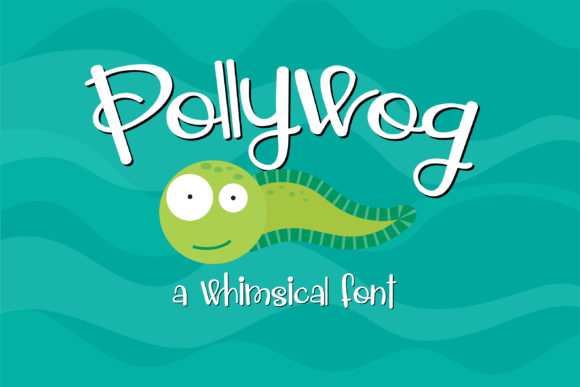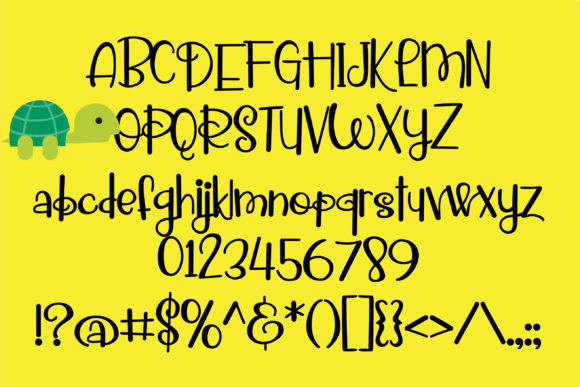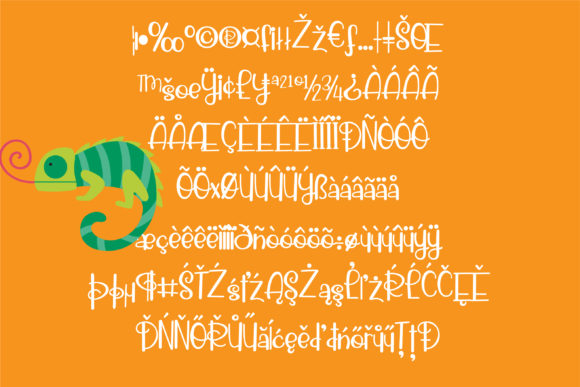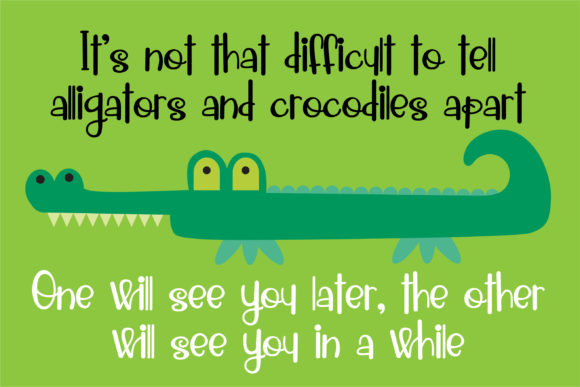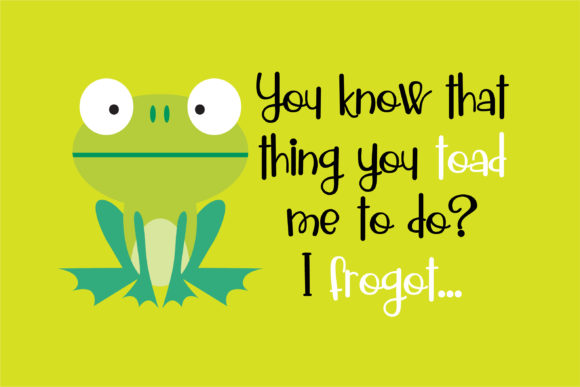
HomeScript FontsPollywog Font Script Fonts Pollywog Font FacebookXPinterestWhatsApp Pollywog Font Poster 2 Pollywog Font Poster 3 Pollywog Font Poster 4 Pollywog Font Poster 5 About Pollywog Font This fun quasi-script is a hand-written font that incorporates script elements with print. DOWNLOAD ON CREATIVE FABRICAThis font is sold and delivered by Creative Fabrica. Font Canyon may earn a commission if you buy through this link. People also explored Butterfly Duo Font Factoria Halfmoon Font Quick Storm Font Bubble Mint Font Flowery Font Coverhaze Font Fall Font Bestseller Font 573 0 TagsPollywog Font Previous articleAbaganoush FontNext articleTearjerking Font LEAVE A REPLY Cancel reply Comment: Please enter your comment! Name:* Please enter your name here Email:* You have entered an incorrect email address! Please enter your email address here Website: Save my name, email, and website in this browser for the next time I comment. Personal Use Free Fadhista Personal Use Free Read more about this font Helsinki Personal Use Free Read more about this font My Ugly Handwritting Personal Use Free Read more about this font Rare Knuckle Personal Use Free Read more about this font BLOG Elegant Wedding Invitation Fonts – Handwritten & Script Fonts Elegant Wedding Invitation Fonts Your wedding day is one of the most important moments of your life, and every detail matters—including your invitation design. Our... Using Fonts in Digital Marketing: Tips to Strengthen Your Brand Identity Free vs Paid Fonts: Why Investing in Premium Fonts Is Worth It To increase your work productivity, choose the most readable fonts.